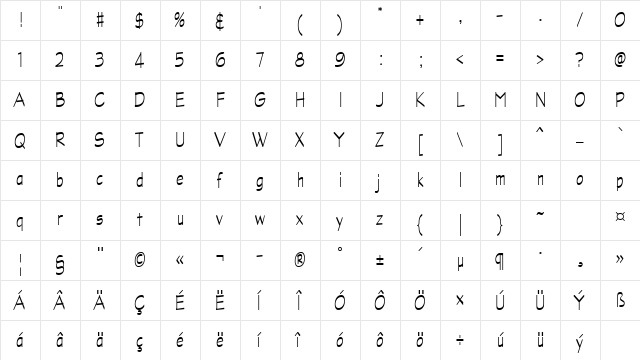
Graphite Light Narrow Regular
Design Context for Graphite Light Narrow Typeface
Graphite Light Narrow takes a measured approach to typography — its balanced proportions and neutral character make it a reliable workhorse for both digital and print work. The delicate stroke weight brings airiness and refinement to layouts. Its narrow stance lets it pack a punch even in space-constrained designs.